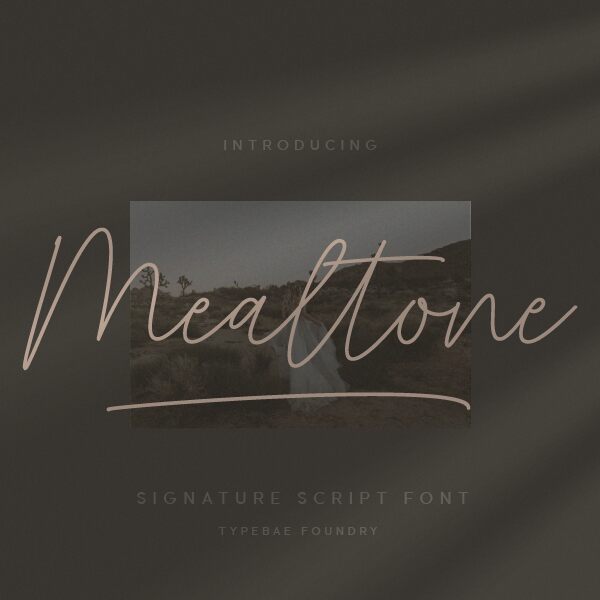
Designed by Typebae Foundry, Mealtone is a captivating font featuring a handwritten stylish script. This light-weight typeface flows quite naturally, seeming like every letter was drawn using the most gentle and dynamic of touches. By possessing continuously fluctuating line widths and fluid lines, it gives an impression of movement thus making any text feel more naturally rhythmic.
The appeal of Mealtone lies in its ability to give off a warm and friendly feeling. Its handwriting makes it ideal for personal production or intimate texts’ designs. No matter what the purpose may be- branding, editing works or even messages from one person to another, this font will definitely make people remember it due to its uniqueness.